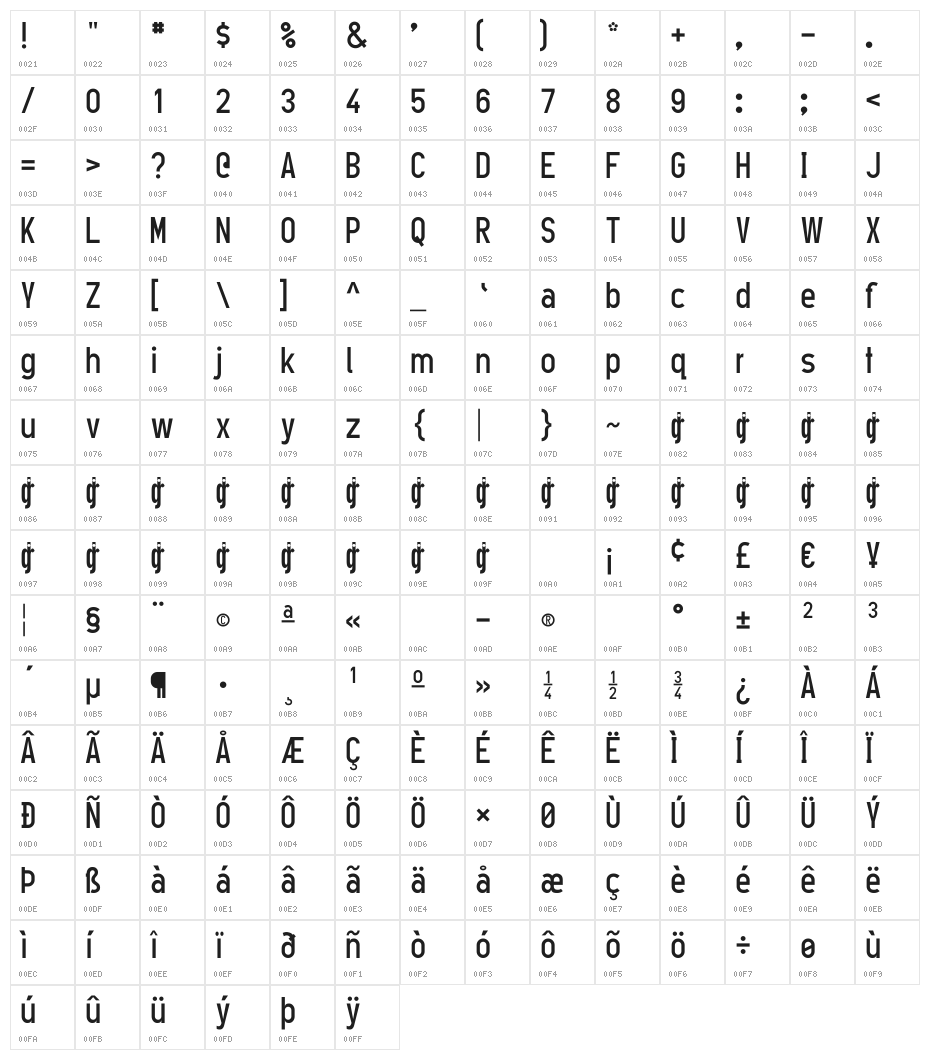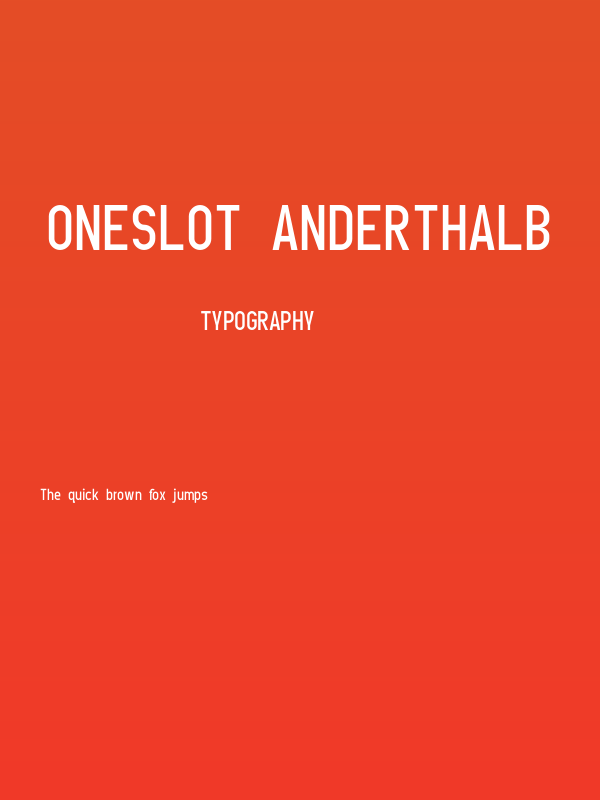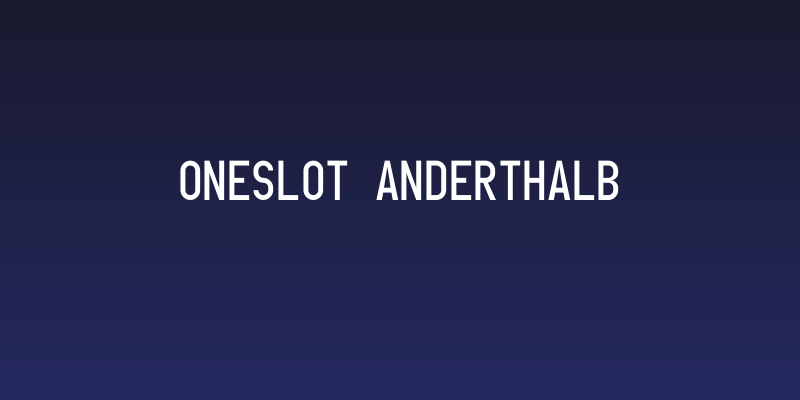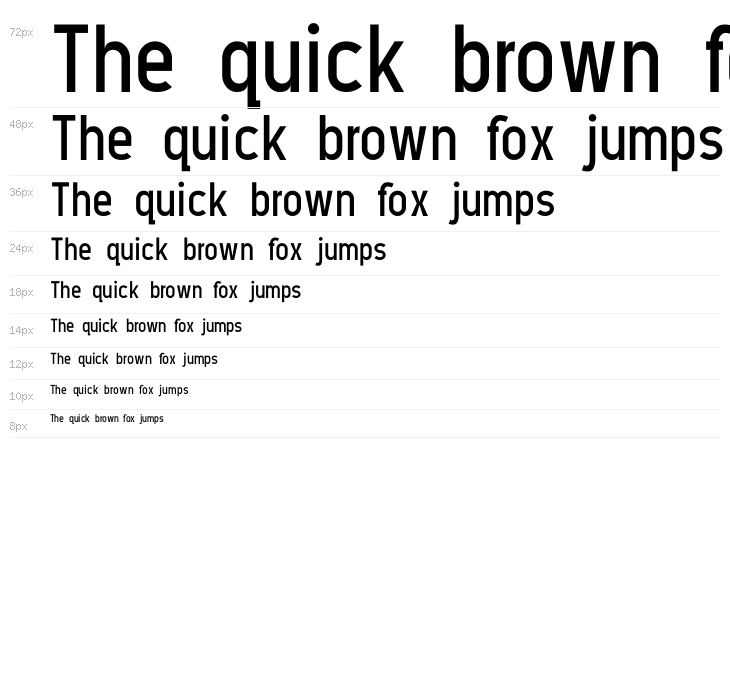
OneSlot Anderthalb Font
OneSlot Anderthalb Description
This font features a clean and modern sans-serif design, characterized by its uniform stroke width and geometric shapes. The uppercase letters are bold and assertive, while the lowercase letters maintain a consistent height, providing a balanced appearance. The numerals are clear and easily distinguishable, making them suitable for various applications. Special characters are well-defined, adding versatility to the font's use. The overall design is straightforward, with a focus on readability and simplicity, making it ideal for both digital and print media.
Proposed ProjectsIdeal for branding, signage, user interfaces, and editorial design due to its clarity and modern aesthetic.